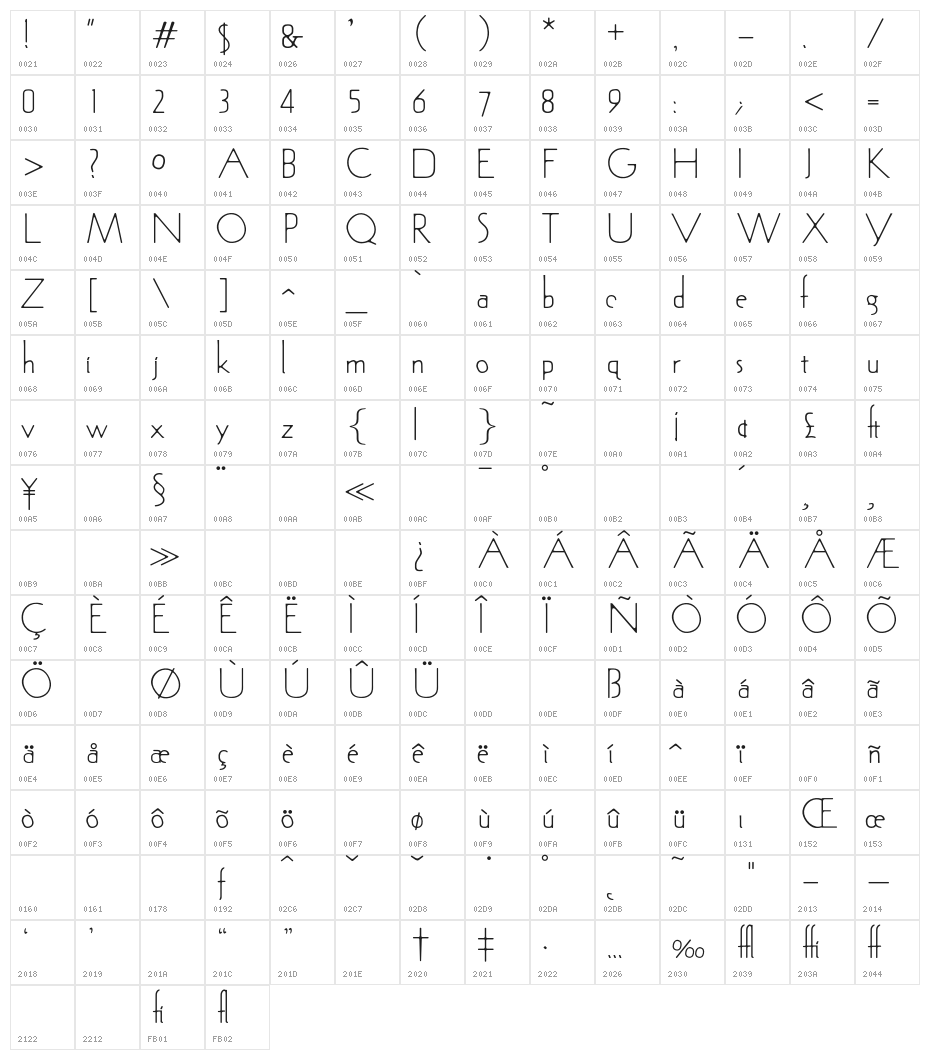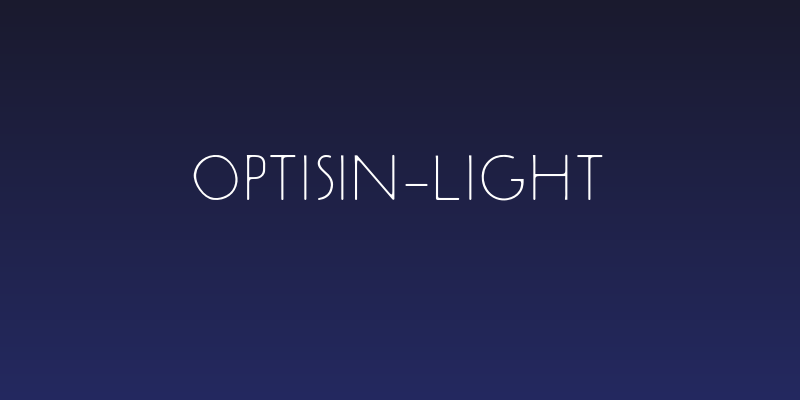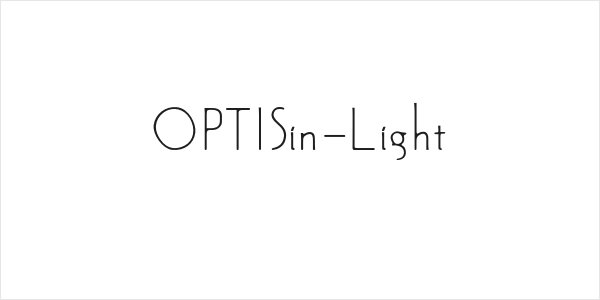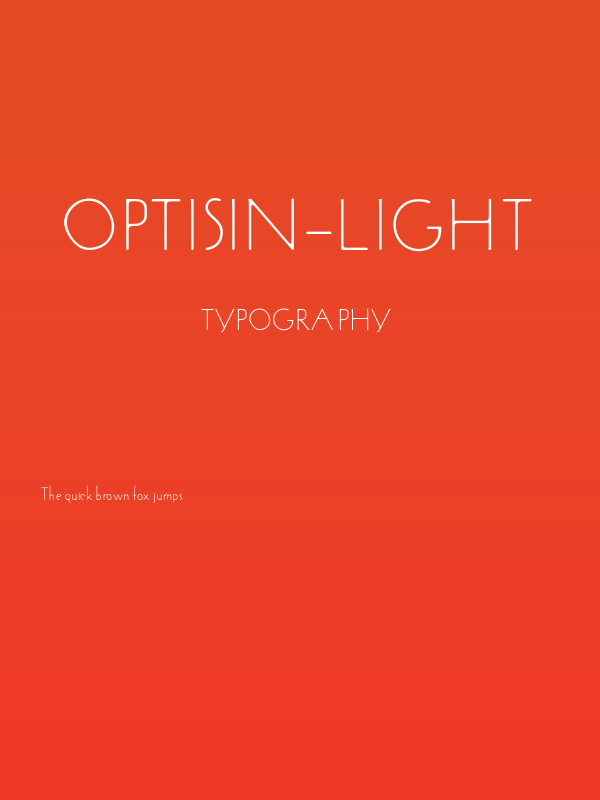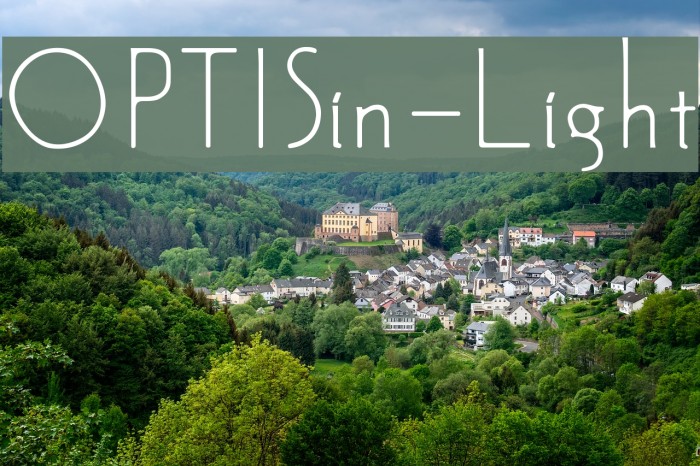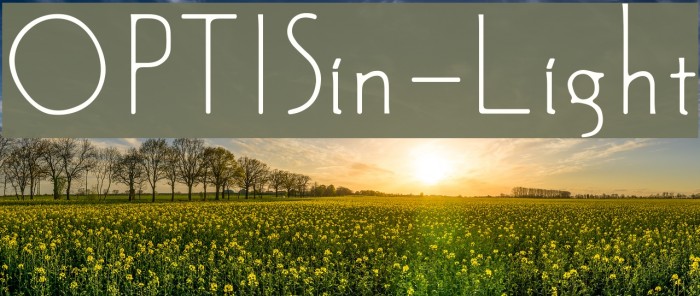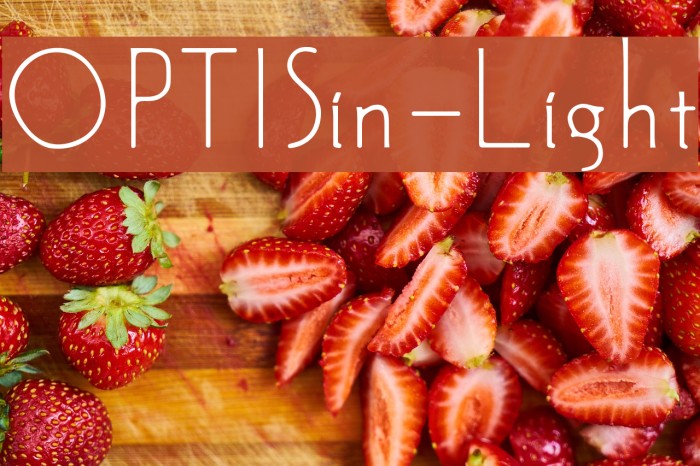
OPTISin-Light Font
OPTISin-Light Description
This font exhibits a clean and modern aesthetic with a geometric structure. The uppercase letters are tall and slender, while the lowercase letters maintain a consistent height with slight variations in width. The numerals are uniform and align well with the overall style, providing a cohesive look. Special characters are designed with simplicity and clarity, enhancing the font's versatility. The strokes are even, contributing to a balanced and harmonious appearance. This font is suitable for a wide range of applications due to its readability and contemporary style.
| Proposed Projects | Ideal for branding, editorial design, web design, and corporate materials. |